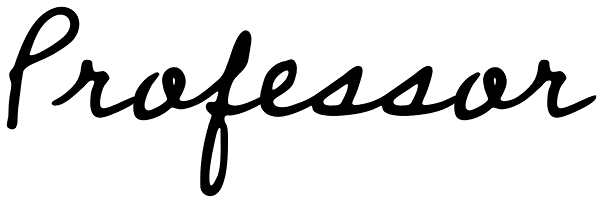
Professor
My father is retired from teaching after a distinguished career as a professor at the University of Texas (and other colleges). He's also retired from writing in longhand, ever since I digitized his script several years ago. Professor is a slightly...